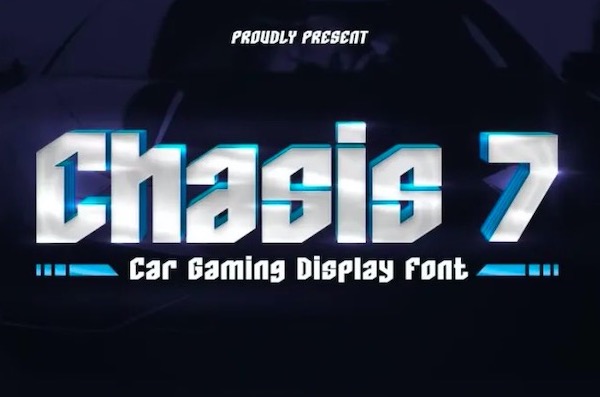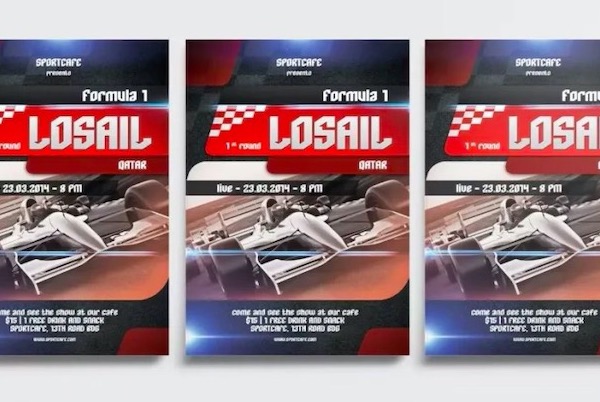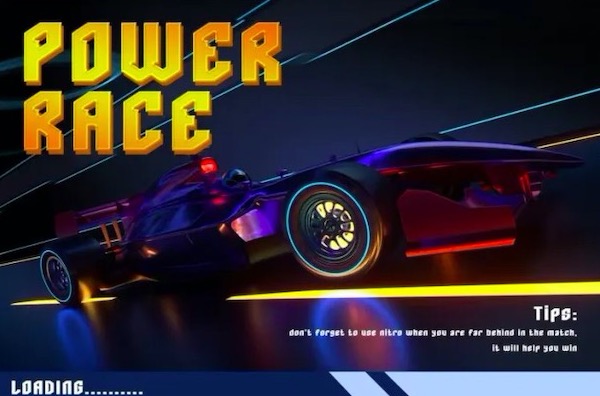
Chasis7 display is a sleek and modern techno font specifically designed for the racing world and car enthusiasts. With its clean, angular lines and high-tech look, the Chasis7 is the perfect choice for any project that requires speed, power and precision.
The font-inspired design is sure to catch the eye of anyone who loves racing thrills. It is ideal for racing items, event posters for car enthusiasts and any project related to the world of racing and high performance cars.
Chasis7 is more than just a font, it’s a powerful design tool that can help you create eye-catching and engaging visuals. Whether designing a racing game, creating posters for a car show, or simply looking for a font that exudes speed and power, Chasis7 is the perfect choice.
Chasis7 Display Font